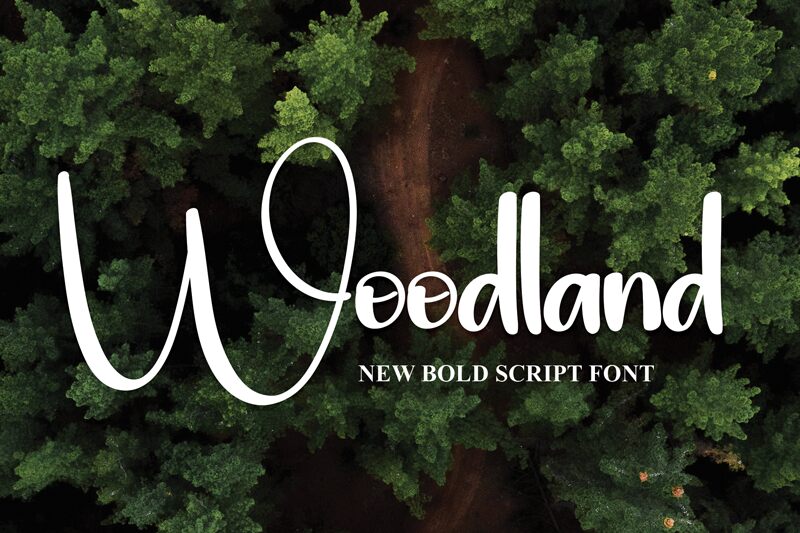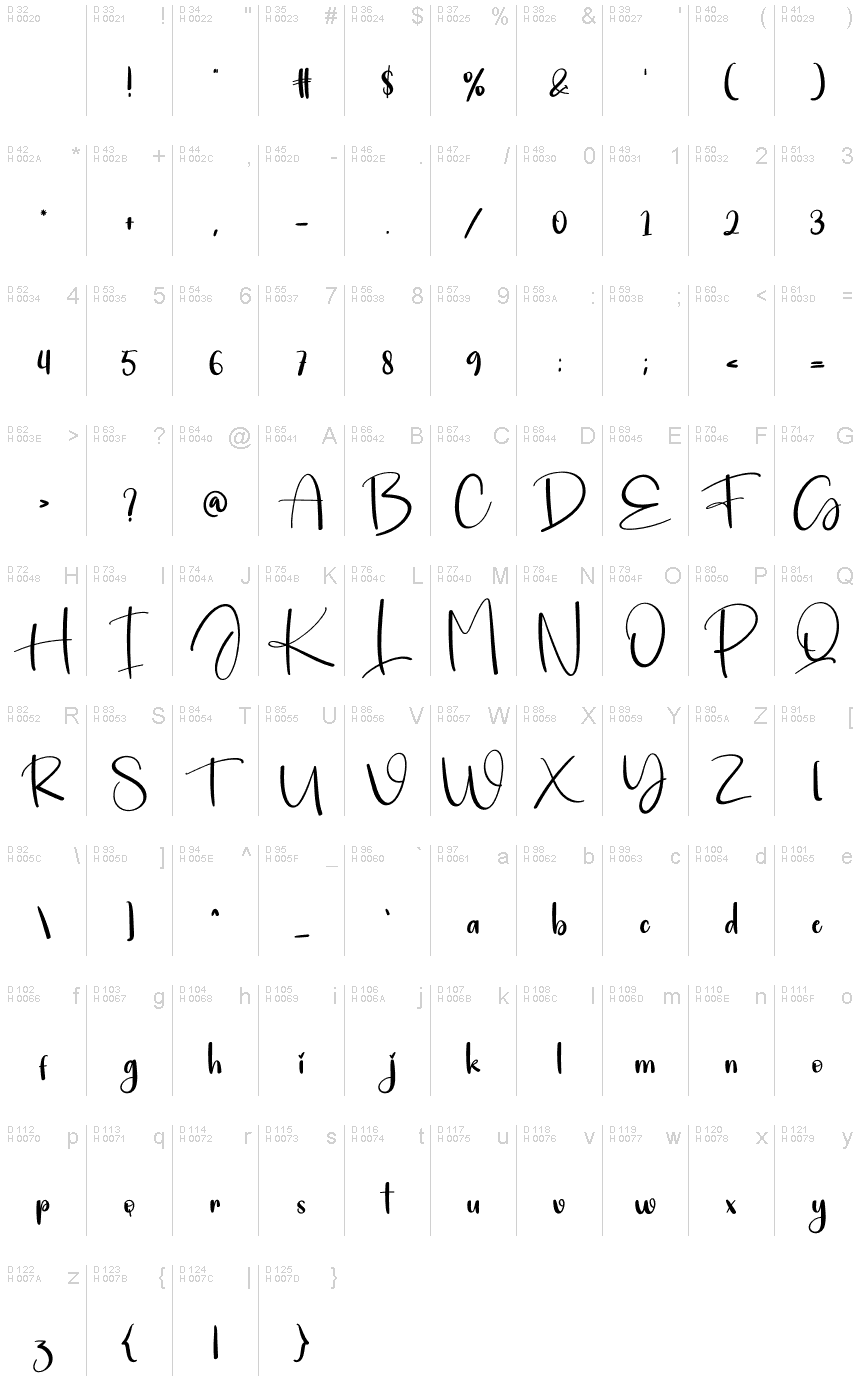
Woodland
Woodland, designed by Scratchones, is a charming semi-light font that captures the essence of lovely handwritten script.
Its delicate strokes and organic flow make it perfect for wedding invitations, greeting cards, and romantic-themed projects. The whimsical nature of Woodland adds a touch of elegance to branding materials like logo designs and product packaging. This versatile typeface also lends itself beautifully to children's book illustrations and crafty DIY projects, bringing warmth and personality to every creative endeavor.